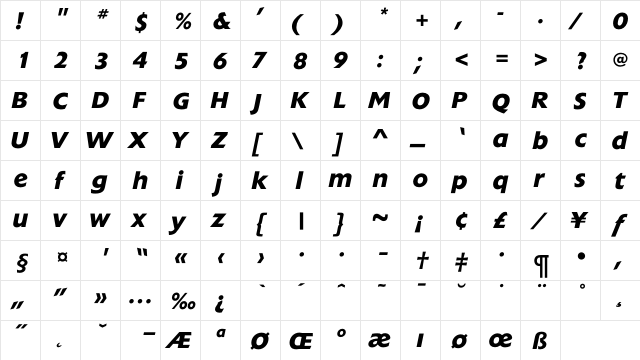
ExtensionBoldItalic Regular Font Preview
Design Context for ExtensionBoldItalic Typeface
ExtensionBoldItalic takes a measured approach to typography — its balanced proportions and neutral character make it a reliable workhorse for both digital and print work. The dynamic lean of this cut emphasises speed and emphasis in any layout. Its bold stroke weight gives it real presence on the page.
Pro Tip: Try ExtensionBoldItalic for annotation and caption copy alongside an upright companion — the contrast in angle creates a dynamic but ordered typographic system.